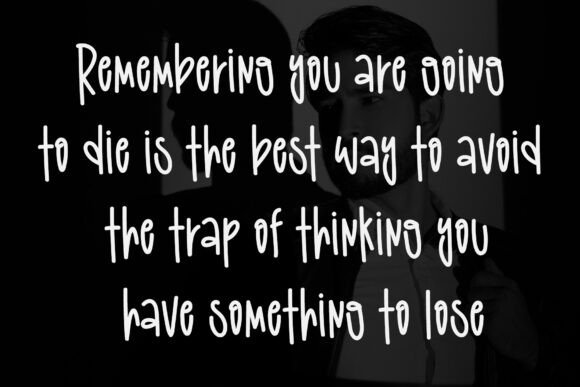
Candy Biscuit Font
Candy Biscuit – A Sweet & Playful Brush Font
Introducing Candy Biscuit – a delightfully quirky playful display font that’s as fun as it is eye-catching! With its bouncy, hand-painted brush strokes and sugary charm, this Playful Brush Font is perfect for designs that need a burst of joy and energy. Whether you’re designing candy packaging, a playful logo, or a vibrant Instagram quote, Candy Biscuit adds a deliciously whimsical touch. Sweeten up your designs with this irresistibly fun display font!